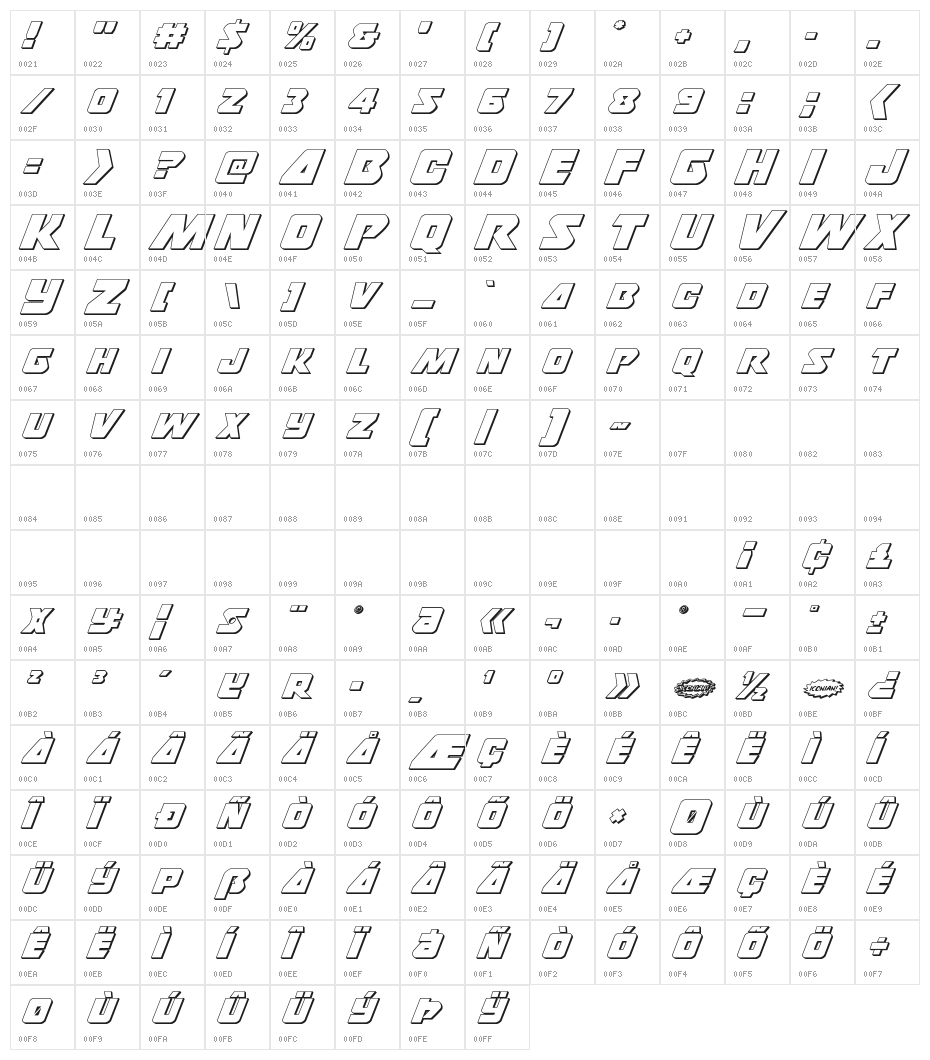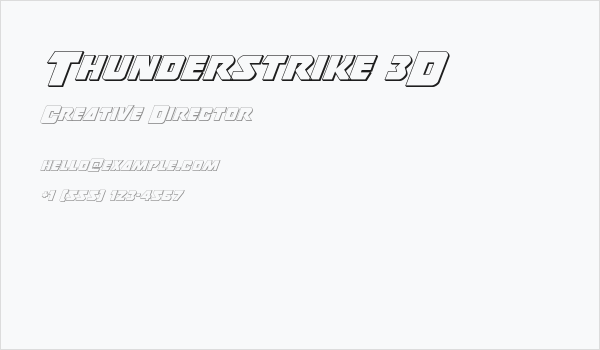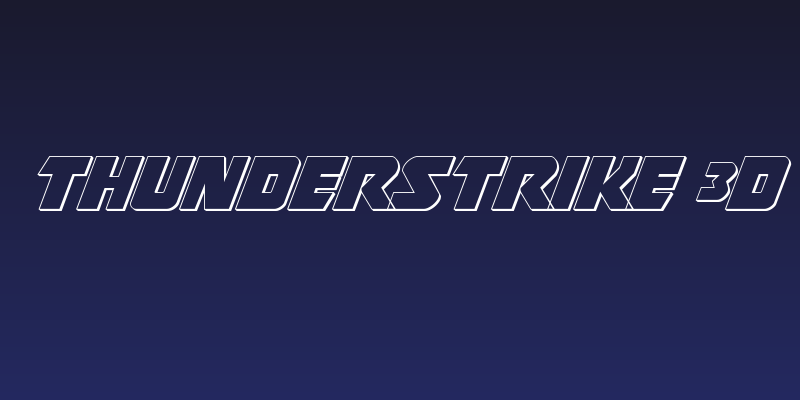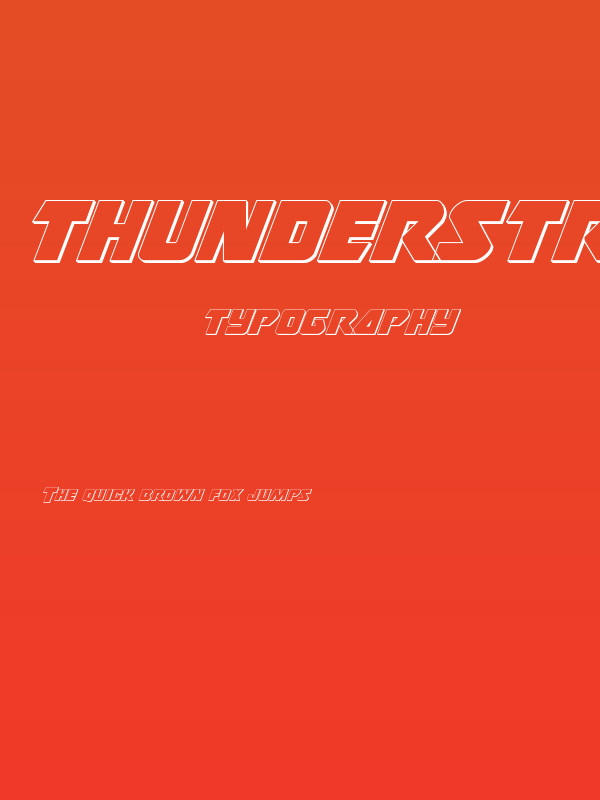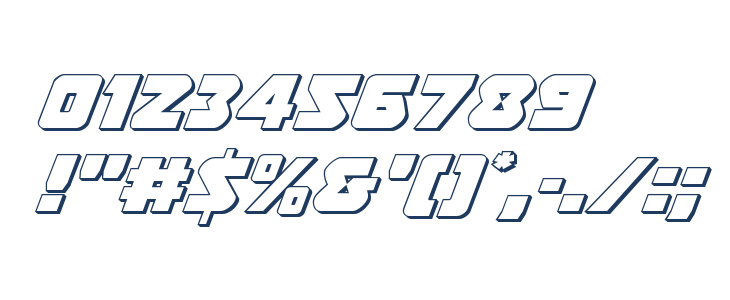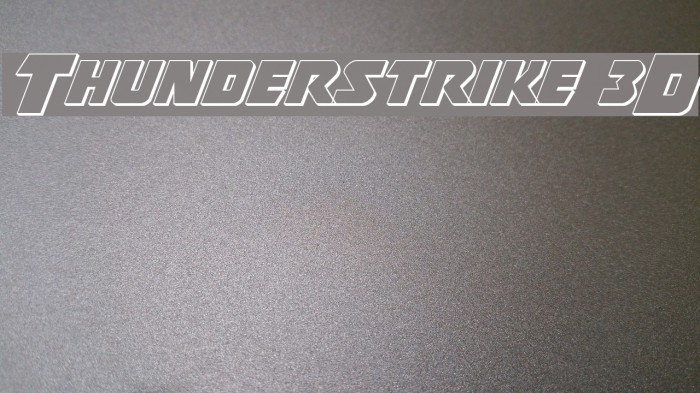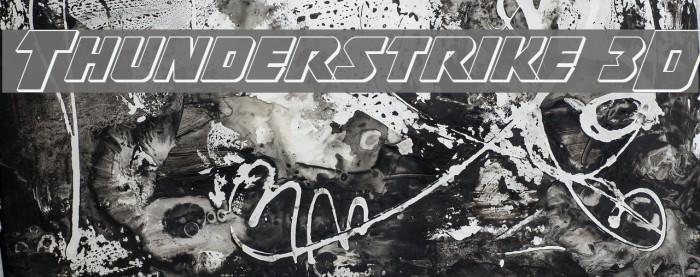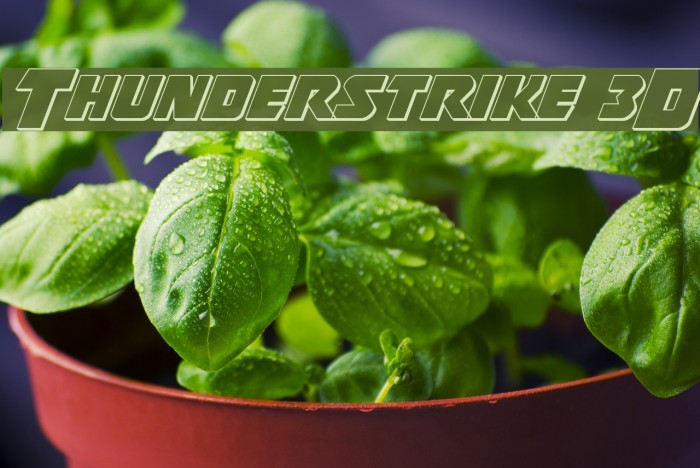
Thunderstrike 3D Font
Thunderstrike 3D Description
This font features a bold, three-dimensional style with a strong geometric influence. The letters are uppercase and have a distinct shadow effect that gives them a dynamic, impactful appearance. The design is clean and modern, with sharp angles and a consistent stroke width that enhances its readability. The numbers and special characters follow the same bold and structured aesthetic, making the font versatile for various uses. Its unique 3D effect is achieved through a clever use of outlines and shadows, creating a sense of depth and movement.
| Proposed Projects | Ideal for projects requiring a strong visual impact, such as posters, logos, video game graphics, and branding materials. |